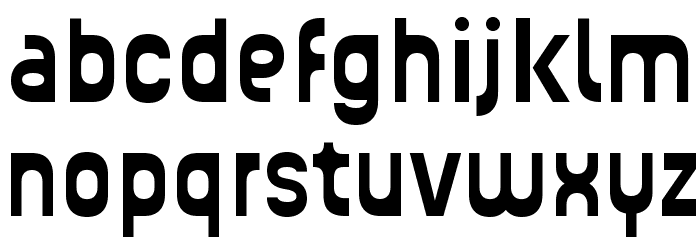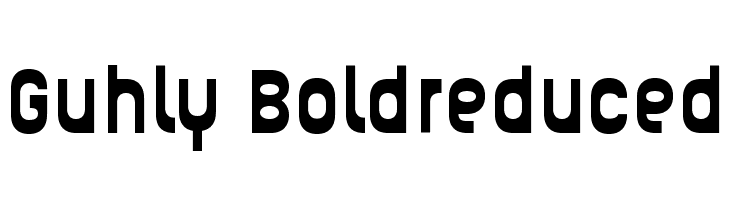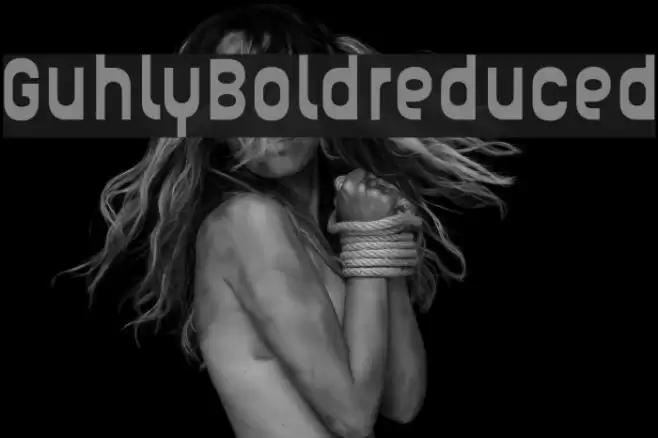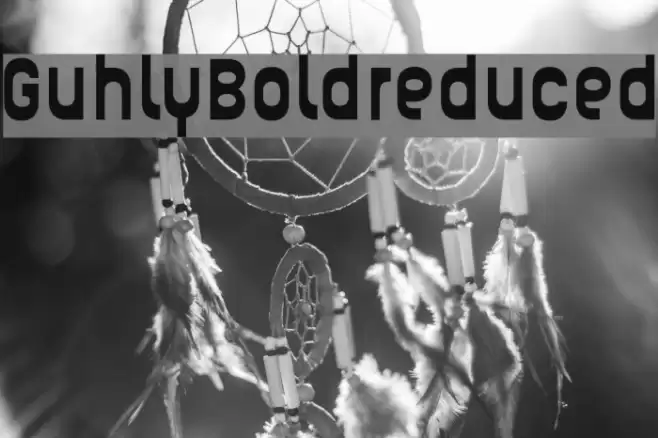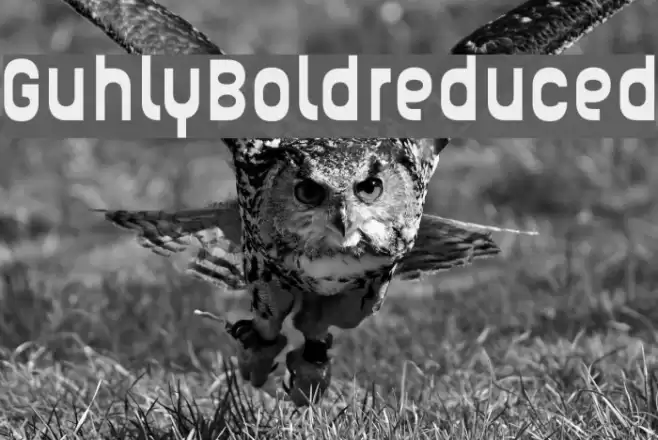
Guhly-Boldreduced Font
This font features a bold and modern design with a geometric structure. The characters are rounded with a consistent stroke width, giving it a clean and contemporary appearance. The uppercase letters are uniform in height, while the lowercase letters maintain a similar width, creating a harmonious balance. The font's simplicity and clarity make it highly legible, even at smaller sizes. Its boldness ensures that it stands out, making it suitable for attention-grabbing headlines and titles. The overall style is sleek and minimalistic, with a touch of modern flair.
A bold, geometric font with rounded characters and a modern design.
- Proposed Projects: Ideal for branding, advertising, posters, and digital media where a modern and bold statement is needed.